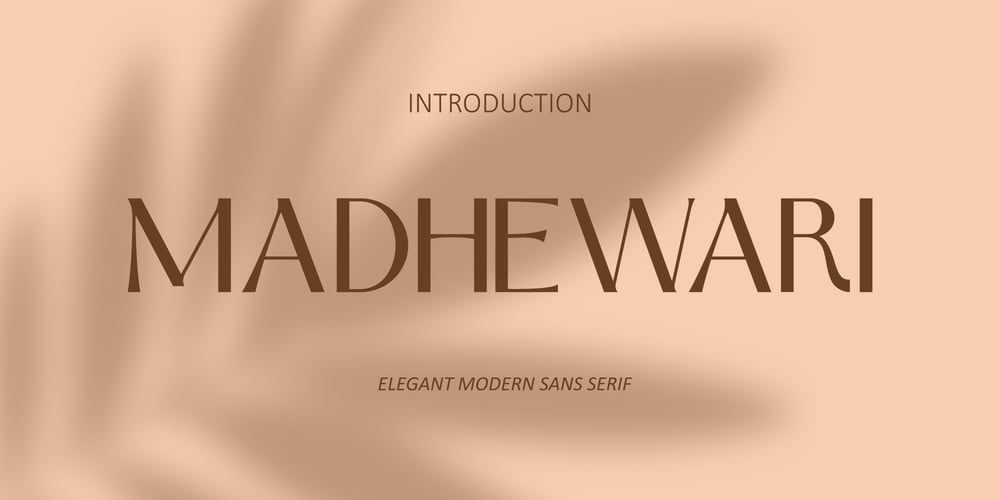
Madhewari Font Family was designed by Mugi Raharjo and published by Nian Keun Studio. Madhewari contains 3 styles and family package options. Maheswari is an elegant font specially designed for those of you who like luxury. Maheswari has a specialty in sharp fonts but also has elements of curves in some of its characters.This font can be applied to your designs ranging from jewelry designs, hotels, magazines, to branding logos.Thank you for coming to my shop and enjoying other fonts.